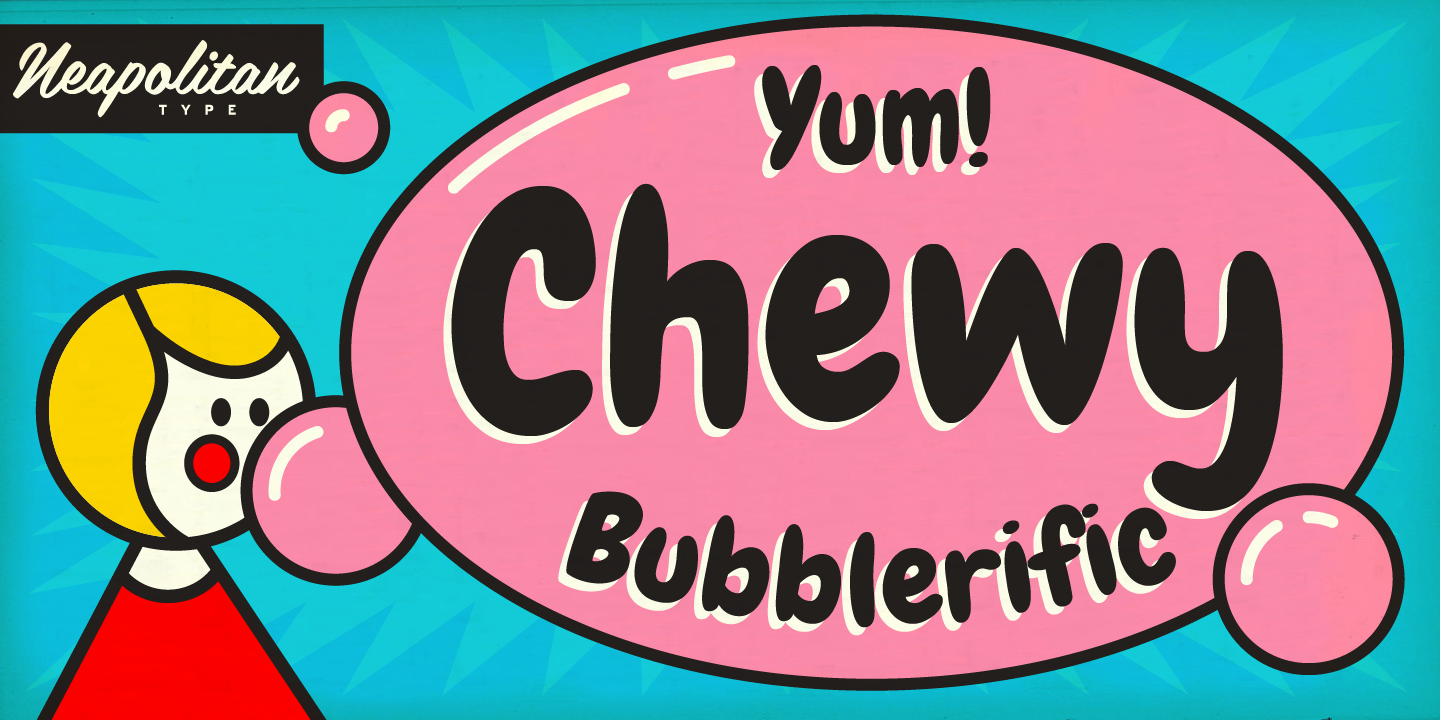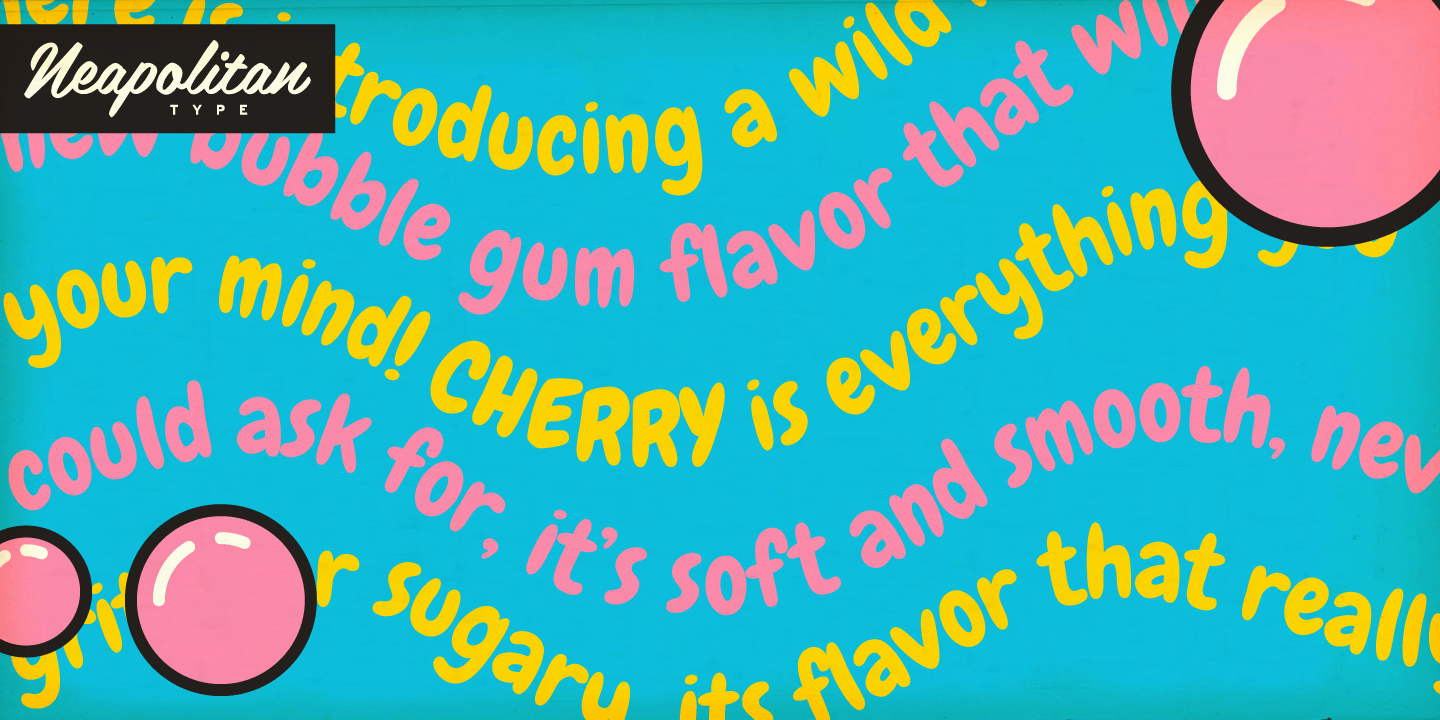
Chewy Pro
Finally. A font you can really sink your teeth into. And unlike all those tasteless fonts, Chewy never loses its flavor! Chewy is sealed for freshness in an easy-open package. Be sure to sample Squid's other main courses and side dishes!
The Pro version has been expanded and enhanced with loads of dynamic OpenType ligatures and more!